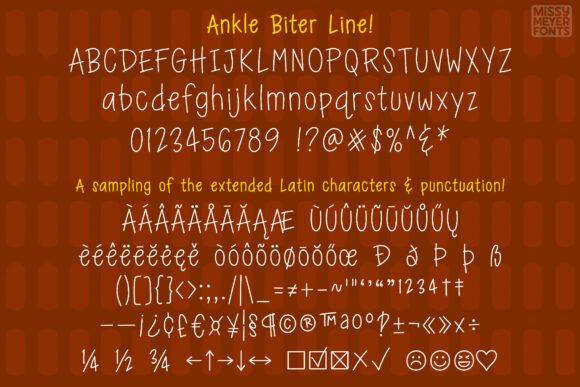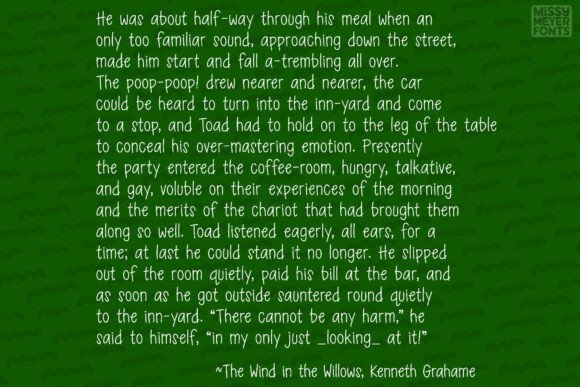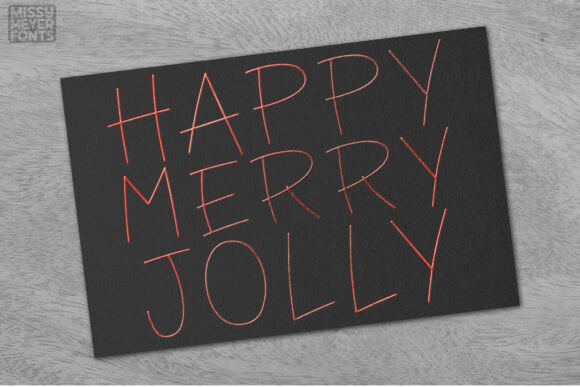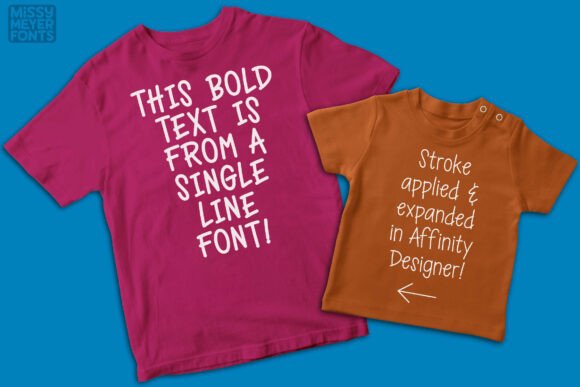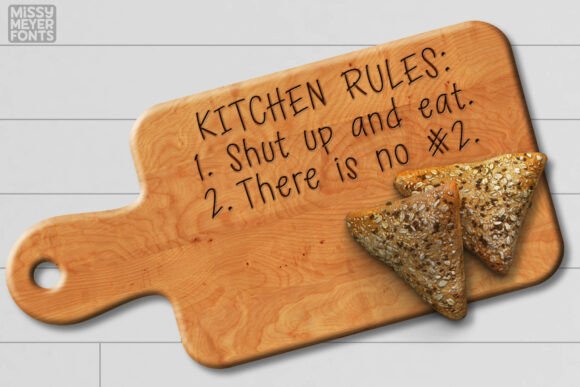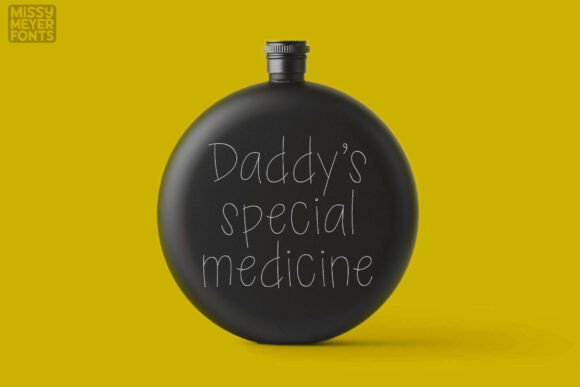
Introducing Ankle Biter Line Font: The Perfect Playful Companion for Creative Projects
Are you on the lookout for a font that adds a touch of playfulness and whimsy to your creative projects? Look no further than the Ankle Biter Line Font. Adapted from the original Ankle Biter Print outline style, this single-line font is designed to bring a fun, handwritten look to a variety of applications, from greeting cards and personalized gifts to engraved jewelry and cutting boards.
A Font Designed for Drawing Tools
Unlike traditional fonts that are optimized for printing, Ankle Biter Line is specifically crafted for tools that draw rather than print. This makes it an ideal choice for crafters and designers who work with a range of mediums, including sketch pens, foil quills, engraving tools, infusible ink pens, and Glowforge machines. With Ankle Biter Line, you can achieve beautiful, hand-crafted results with ease.
Flexible Font Options for Different Needs
Ankle Biter Line Font comes in both single-stroke and double-stroke versions, providing flexibility across different design programs and machines. This means you can choose the version that best suits your project’s requirements and your personal preference. Additionally, the font package includes an SVG file containing the full character set, which is perfect for manual use or when your software doesn’t fully support the typeable font.
Ideal Applications for Ankle Biter Line Font
The versatility of Ankle Biter Line Font makes it suitable for a wide range of creative projects. Here are some ideas to get you started:
- Greeting Cards: Add a personal touch to your greeting cards with the playful, cursive feel of Ankle Biter Line.
- Personalized Gifts: Make gifts extra special with engraved names, messages, or quotes in this charming font.
- Engraved Jewelry: Create custom jewelry pieces with a personal message or name in a font that’s both elegant and whimsical.
- Cutting Boards: Add a personal touch to kitchen essentials with custom engravings.
- DIY Crafts: From iron-on designs to custom signs, Ankle Biter Line is perfect for a variety of DIY craft projects.
Ankle Biter Line Font is a delightful addition to any designer’s or crafter’s toolkit. Its playful, single-line design and compatibility with a range of drawing tools make it perfect for adding a personal touch to various creative projects. Whether you’re making gifts, decorations, or just want to add some whimsy to your designs, Ankle Biter Line is sure to become a favorite. With its flexibility, charm, and ease of use, this font is ready to bring your creative visions to life.